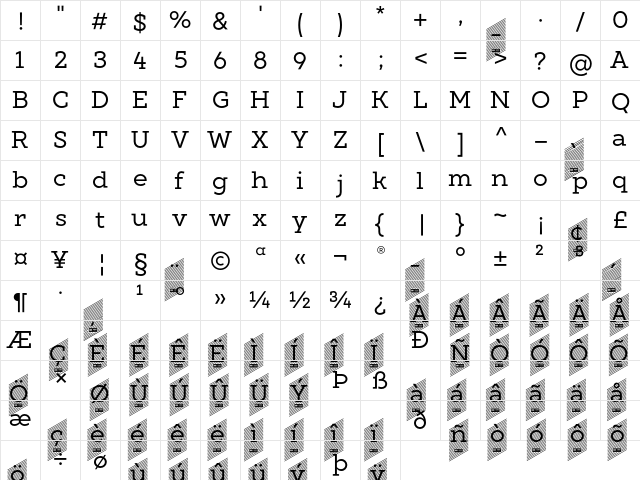
XXII Geom Slab DEMO Regular Font Preview
XXII Geom Slab DEMO Regular
XXII Geom Slab DEMO Regular Font Details
| Foundry | Doubletwo Studios |
| Designer | Lecter Johnson |
Design Context for XXII Geom Slab DEMO Typeface
XXII Geom Slab DEMO features prominent, blocky serifs that give it a confident, grounded presence — equally at home in editorial settings and bold branding work.
Suited to magazines, political campaign materials, bold packaging, and any setting where authority matters.
Pro Tip: Use XXII Geom Slab DEMO for headlines and subheadings where its slab serifs can make an impression. It also holds up well in mid-size body copy thanks to its sturdy construction.